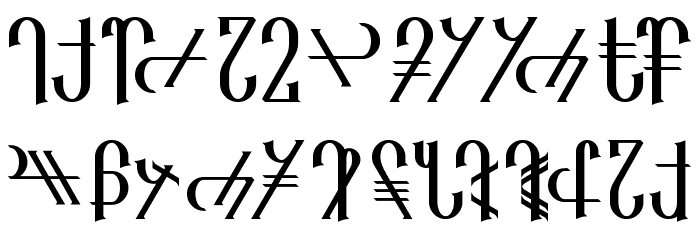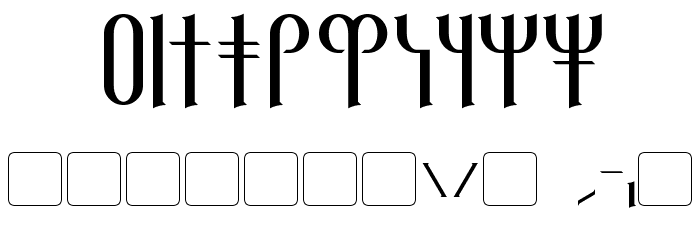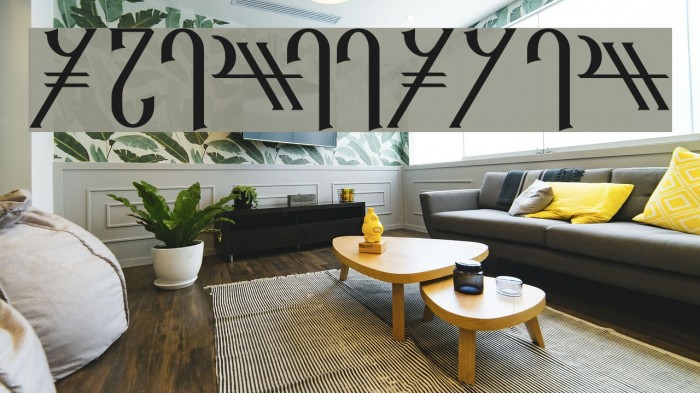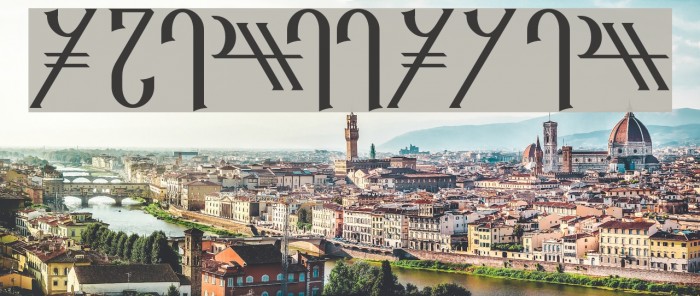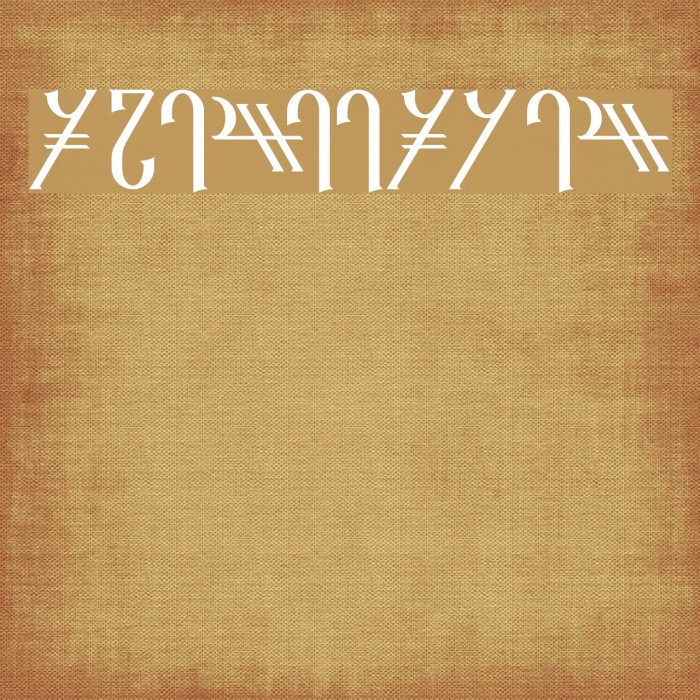
Reanaarian Font
This font features a unique and intricate design, characterized by its elaborate and decorative letterforms. Each character is crafted with a combination of sharp angles and smooth curves, creating a striking visual contrast. The font exhibits a high level of detail, with elements that suggest a fusion of traditional and modern influences. Its ornate style makes it stand out, with a sense of elegance and sophistication. The characters are well-balanced, maintaining readability despite their complex design. This font is ideal for projects that require a touch of creativity and flair.
An intricate and decorative font with a blend of sharp angles and smooth curves.